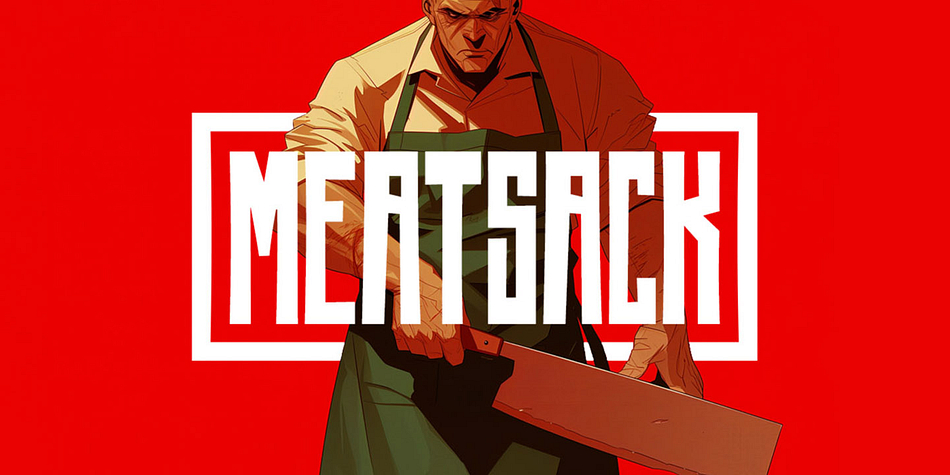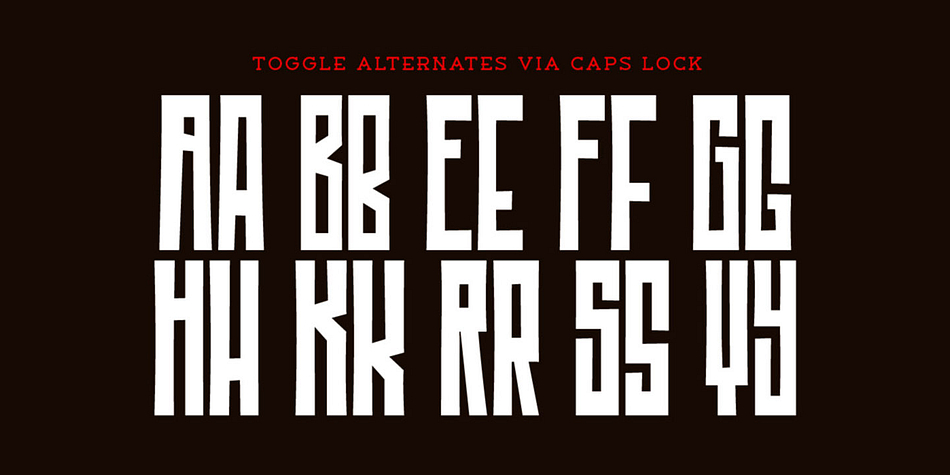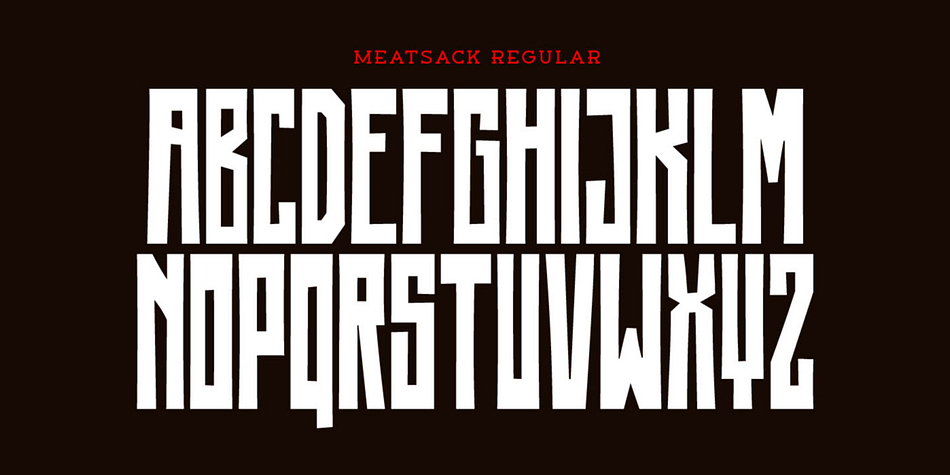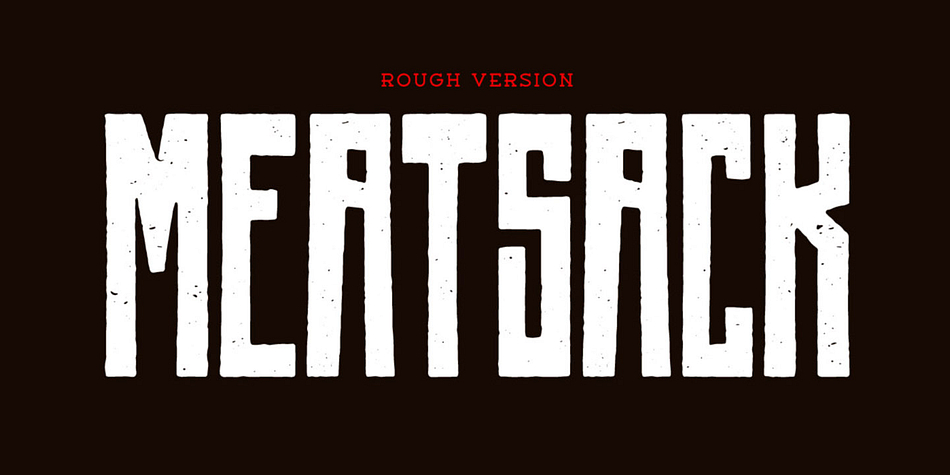
Meatsack
Meatsack is a display sans font family. This typeface has two styles and was published by Tugcu Design Co.
Meatsack is a tall irregular font family with alternates that can be toggled via Caps Lock.